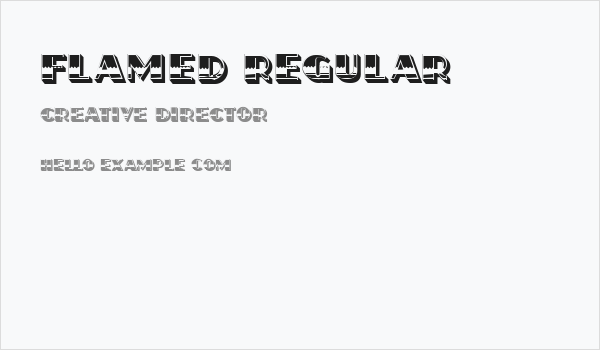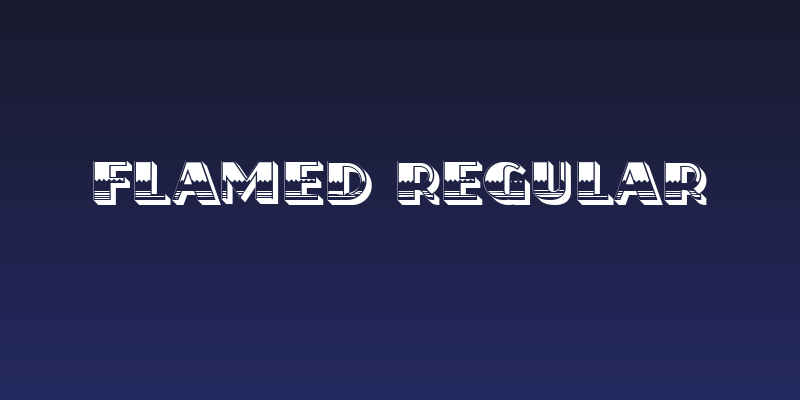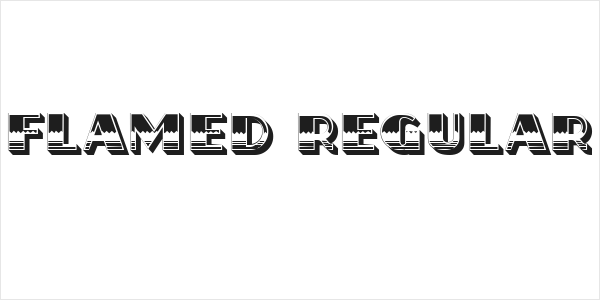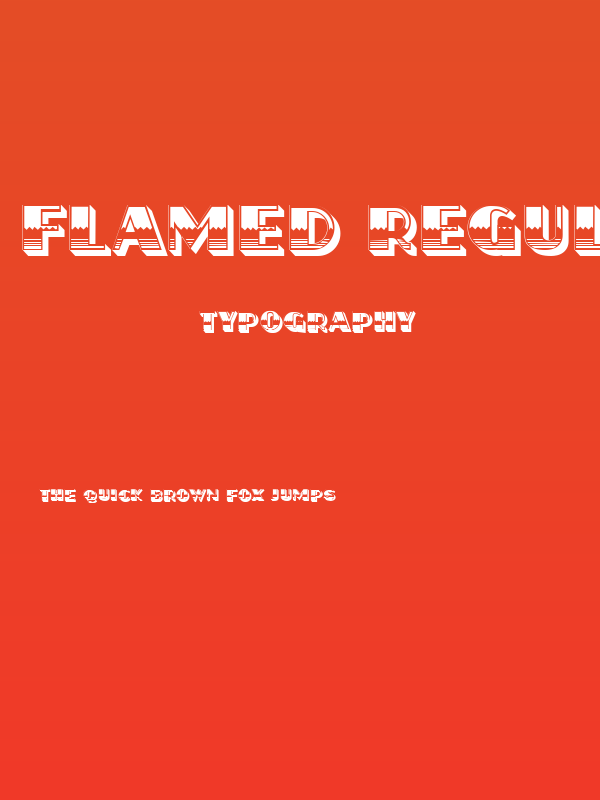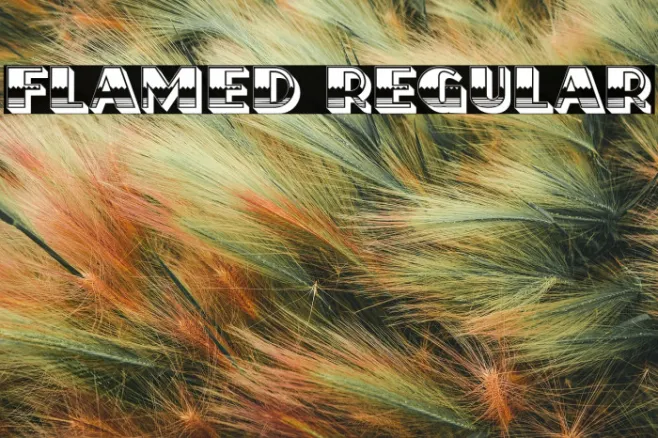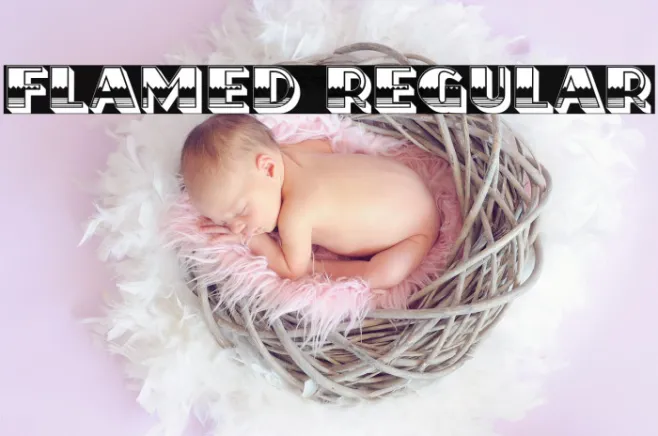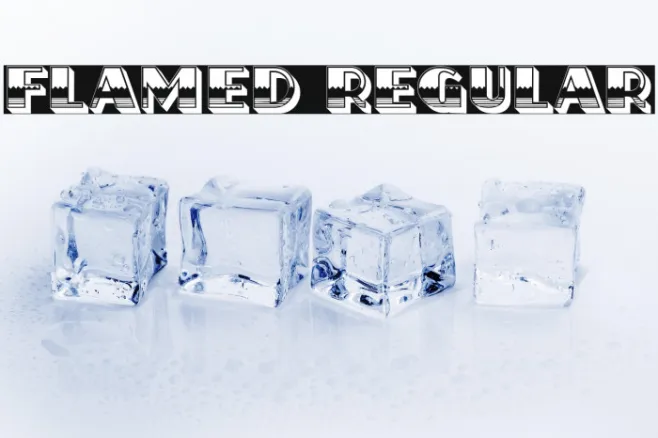
Flamed Regular Font
Flamed Regular Description
This font features a bold, decorative style with a unique striped pattern running horizontally through each character. The design incorporates a three-dimensional effect, giving the letters a sense of depth and movement. The uppercase letters are particularly striking, with sharp angles and a strong presence. The font's playful yet structured appearance makes it suitable for eye-catching designs. The characters are evenly spaced, ensuring readability while maintaining the font's distinctive style.
| Proposed Projects | Ideal for posters, logos, and branding materials that require a bold and dynamic visual impact. |